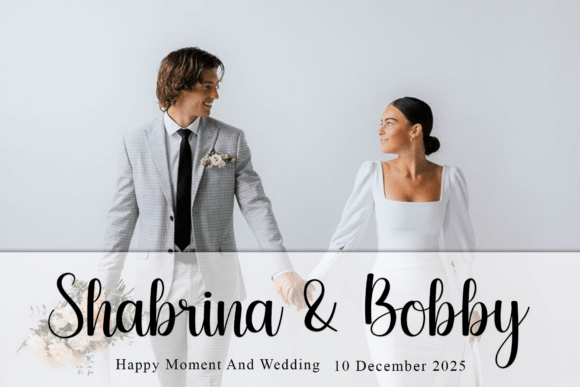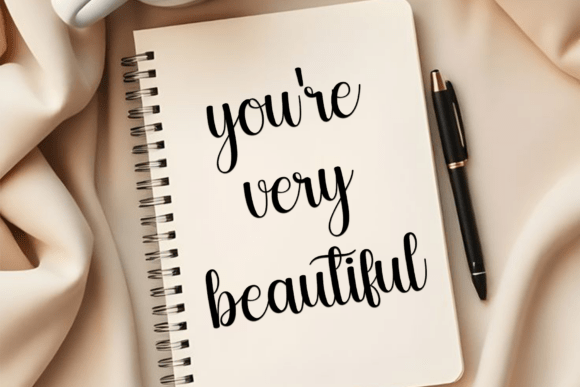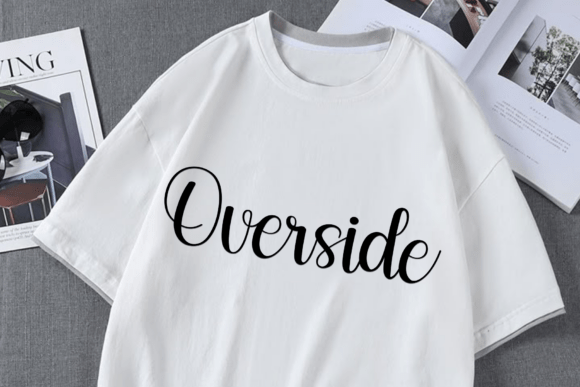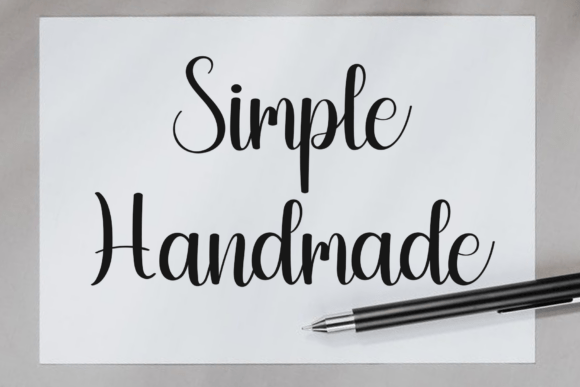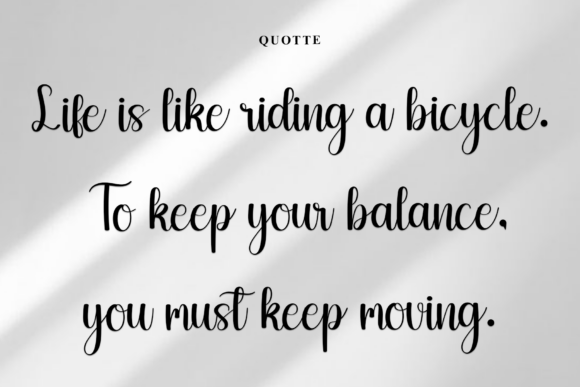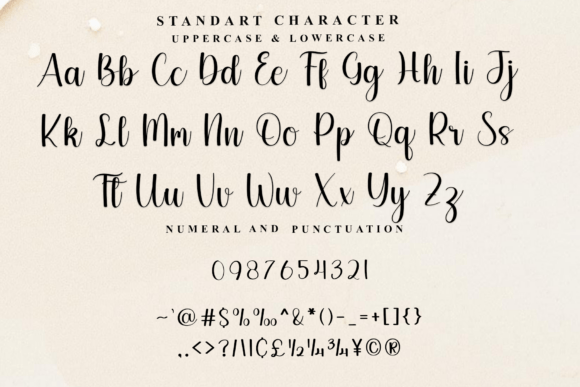
The Magic of Birthday Font: Elevate Your Holiday Designs
It’s that time of the year again – the holiday season is just around the corner, and as designers, crafters, and creative hobbyists, we’re on the lookout for that perfect font to make our projects shine. I still remember the year I was working on a Christmas card design for a client, and I just couldn’t find the right font to capture the festive spirit. The client wanted something merry, bright, and whimsical, but not too over-the-top. After hours of scouring font websites and trying out different typefaces, I stumbled upon the Birthday Font – and it was love at first sight!
So, what makes the Birthday Font so special? Here are a few things I absolutely adore:
- ✨ Festive and Whimsical: This font is the epitome of holiday cheer. Its decorative elements and playful flair instantly add a touch of magic to any design.
- 🎉 Versatile: Whether you’re working on greeting cards, gift tags, or holiday-themed projects, this font fits right in.
Of course, no font is perfect, and there are a few minor quirks to be aware of:
- 🤔 Glyph Overload: With so many glyphs and ligatures available, it can be a bit overwhelming to navigate. Take some time to explore the font, and you’ll get the hang of it!
- ⚠️ Not Suitable for Body Text: While the Birthday Font is stunning for headlines and titles, it’s not the best choice for body text. Stick to a clear, readable font for longer blocks of text.
The Story Behind Birthday Font
The Birthday Font was designed with the holiday season in mind. Its creator wanted to craft a typeface that would evoke the magic and wonder of this special time of year. With its decorative elements and whimsical flair, it’s no wonder this font has become a favorite among designers and crafters.
| Is the Birthday Font suitable for body text? | No, the Birthday Font is best used for headlines and titles. For body text, choose a clear, readable font. |